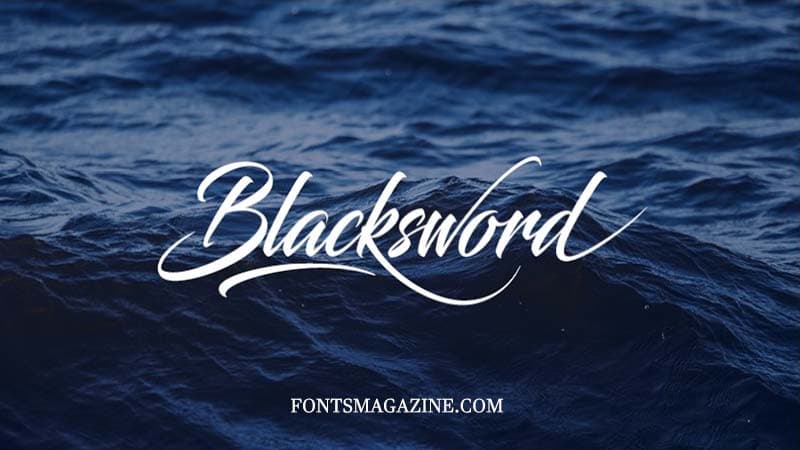
Blacksword Font
Blacksword is a high quality Calligraphy font that is designed by Youssef Habchi and is available for free download and personal use. The free version provides all uppercase and lowercase letters and a few special characters too.